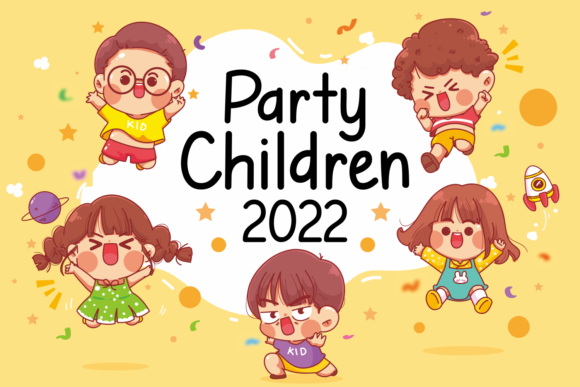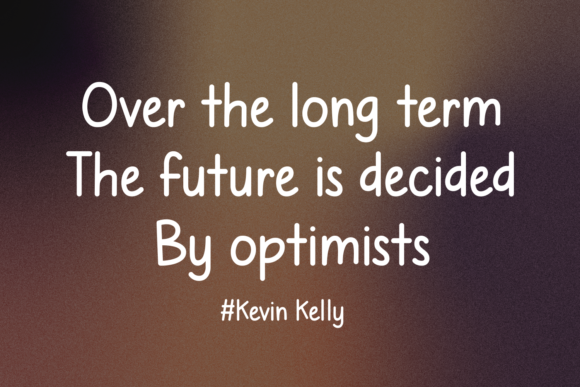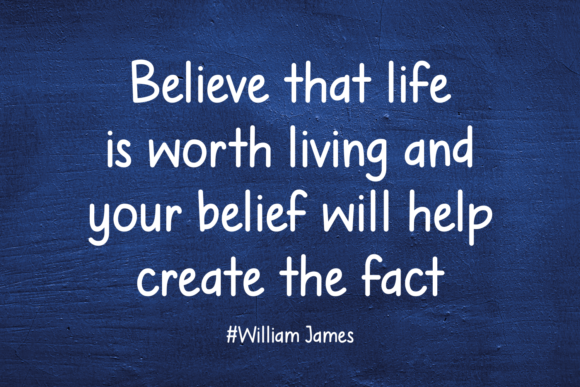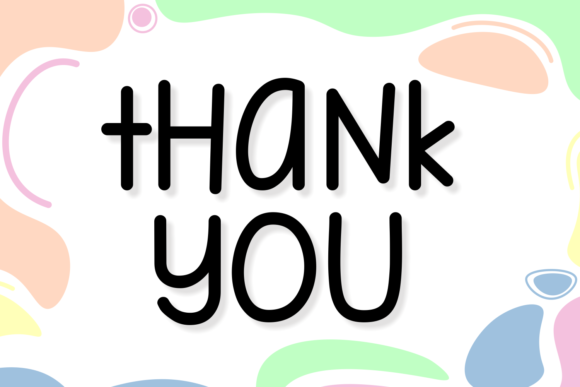
Introducing Chubby Nabila Font: The Sweet and Friendly Handwritten Font for Your Creative Projects
Are you a designer, crafter, or DIY enthusiast looking for a font that can add a personal touch to your creative projects? Look no further than Chubby Nabila Font! This sweet and friendly handwritten font is perfect for a wide range of designs, from invitations and greeting cards to branding and packaging. In this article, we’ll explore the unique features of Chubby Nabila Font and how it can elevate your designs to the next level.
The Charm of Chubby Nabila Font
Chubby Nabila Font is a beautifully crafted handwritten font that exudes warmth and friendliness. Its natural and unique style makes it incredibly fitting for a large pool of designs, from playful and whimsical to elegant and sophisticated. The font’s rounded edges and soft curves give it a charming and approachable feel, making it perfect for designs that require a personal touch.
What Makes Chubby Nabila Font So Versatile?
One of the standout features of Chubby Nabila Font is its versatility. This font can be used for a wide range of designs, including:
• Invitations and greeting cards: Add a personal touch to your invitations and greeting cards with Chubby Nabila Font’s sweet and friendly style.
• Branding and packaging: Use Chubby Nabila Font to create unique and eye-catching branding and packaging designs that stand out from the crowd.
• Digital art and illustrations: Combine Chubby Nabila Font with your digital art and illustrations to add a touch of personality and whimsy.
• Web design: Use Chubby Nabila Font to create engaging and user-friendly web designs that showcase your brand’s personality.
The Benefits of Using Chubby Nabila Font
So why choose Chubby Nabila Font for your creative projects? Here are just a few benefits of using this amazing font:
• Unique and eye-catching: Chubby Nabila Font is a one-of-a-kind font that will make your designs stand out from the crowd.
• Easy to read: Despite its playful and whimsical style, Chubby Nabila Font is incredibly easy to read, making it perfect for designs that require a clear and concise message.
• Highly versatile: Chubby Nabila Font can be used for a wide range of designs, from digital art to web design.
• Perfect for branding: Use Chubby Nabila Font to create a consistent brand identity that showcases your personality and style.
How to Use Chubby Nabila Font in Your Designs
Using Chubby Nabila Font in your designs is easy! Here are a few tips to get you started:
• Pair it with other fonts: Combine Chubby Nabila Font with other fonts to create a unique and eye-catching design.
• Experiment with colors: Try out different colors and color combinations to find the perfect match for your design.
• Play with sizes: Experiment with different font sizes to create visual interest and hierarchy in your design.
Chubby Nabila Font is a sweet and friendly handwritten font that is perfect for designers, crafters, and DIY enthusiasts. Its natural and unique style makes it incredibly fitting for a wide range of designs, from invitations and greeting cards to branding and packaging. With its versatility, ease of use, and unique charm, Chubby Nabila Font is sure to become a favorite in your design toolkit. So why wait? Download Chubby Nabila Font today and start creating amazing designs that showcase your personality and style!